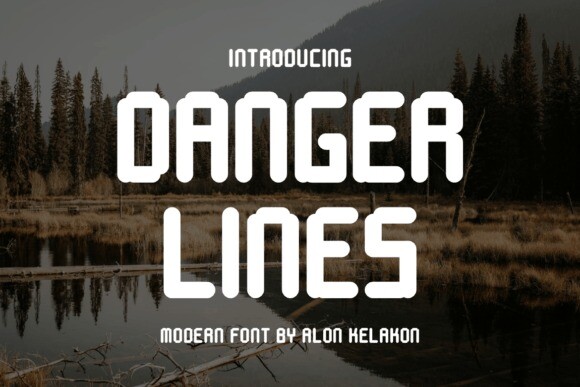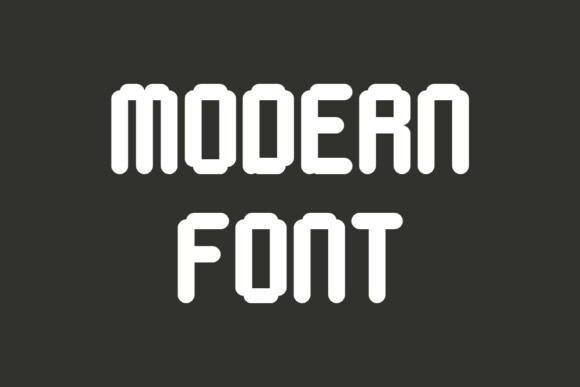
Danger Lines Font
Danger Lines Font is a unique and interesting display font. A little bit quirky, this font looks incredibly adept on a wide variety of contexts.